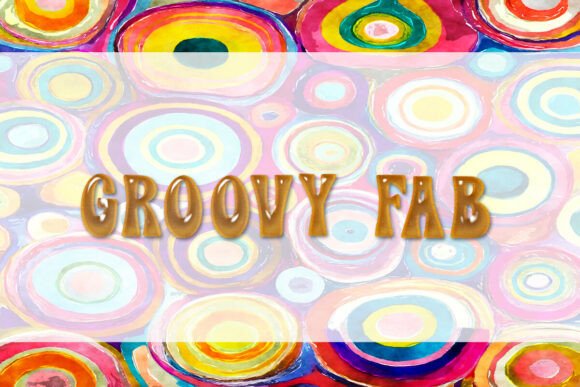
Get Ready to Groove with the Groovy Fab Font
Have you ever been working on a design project, pouring your heart and soul into it, and then suddenly, the perfect font pops up in your mind? For many designers, that moment is a game-changer. It’s when the entire project comes together, and you can’t wait to see it come to life. For me, that moment was when I discovered the Groovy Fab Font.
This retro display font is a masterclass in capturing the essence of the 1960s and 1970s. Its bold, curvy letterforms radiate positive energy, making it a go-to choice for designers who want to infuse their projects with nostalgia and a touch of playfulness. Whether you’re creating a poster, logo, or social media graphic, the Groovy Fab Font is the perfect companion to help you spread joy and creativity.
As a designer, having the right font at your disposal can be a lifesaver. The Groovy Fab Font is a valuable addition to any design toolbox, offering a unique blend of vintage charm and modern style that’s sure to make your projects stand out.
Groovy Fab Font Key Features
- Font Family: Groovy Fab Font is a unique, hand-drawn sans-serif font family designed for creative and artistic purposes.
- Unique Characteristics: Groovy Fab Font features a distinctive, playful feel with rounded edges and dynamic letterforms, perfect for adding a touch of whimsy to designs.
- Language Support: Supports a wide range of languages, including Latin, Cyrillic, and Greek scripts, making it suitable for international designs.
- Style Variations: Includes multiple style variations, including Regular, Italic, Bold, and Bold Italic, to provide flexibility in design applications.
Designer Review: Groovy Fab Font
Overall, I think Groovy Fab Font is a fun and quirky addition to any design project. The font’s ✨ bold and playful personality is sure to bring a smile to users’ faces.
Here are a few things that work well:
- ✨ Unique character shapes add a touch of whimsy to text.
- ✨ Bold weights make it perfect for headings and titles.
- ✨ Supports a wide range of languages.
However, I do have a few concerns:
- ⚠️ Some letterforms may be difficult to read at smaller font sizes.
- ⚠️ Limited kerning options may require additional manual adjustments.
- ⚠️ Not suitable for formal or professional applications.
Overall, I think Groovy Fab Font is a great choice for casual, creative projects. Just be sure to use it thoughtfully and consider the needs of your audience.
Tips for Getting the Most Out of Groovy Fab Font
To get the most out of the Groovy Fab Font, consider the following tips:
- Use the font in bold or italic styles to add emphasis and visual interest.
- Pair the Groovy Fab Font with other fonts to create a unique and eye-catching typography combination.
- Experiment with font sizes and colors to create a striking visual effect.
The Groovy Fab Font is ideal for:
- Designing eye